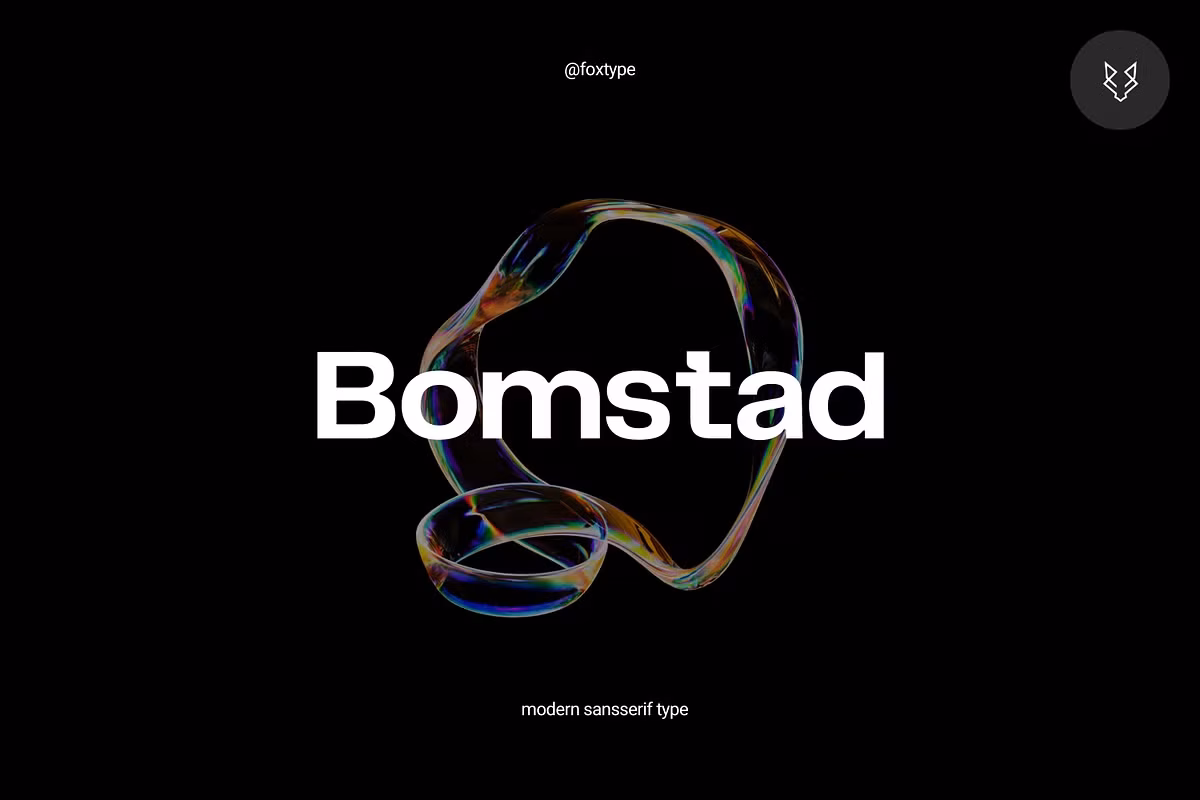
Bomstad Display Typeface Free Download is a bold and stylish typeface perfect for modern branding, eye-catching posters, and unique editorial designs. With its elegant curves and clean structure, this font brings a sophisticated yet edgy vibe to any project. Designers looking for a versatile typeface that combines creativity and readability will find Bomstad Display an ideal choice.